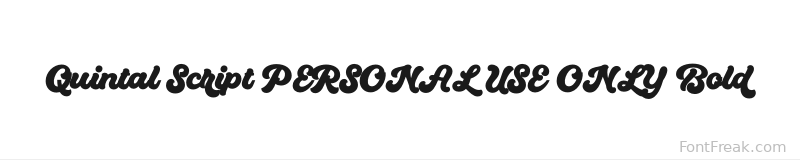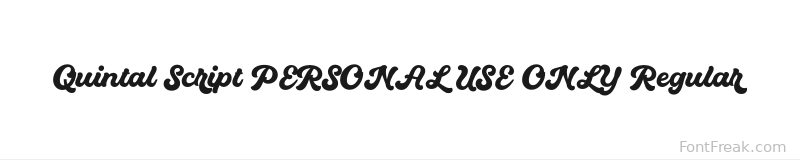
Quintal Script PERSONAL USE ONLY Bold
Quintal Script PERSONAL USE ONLY Regular
Quintal Script PERSONAL USE ONLY Bold is a striking script font designed by Mans Greback, embodying a blend of elegance and modern flair. This font, categorized under script typefaces, features a bold stroke weight that ensures it stands out in any application. The smooth curves and playful flourishes create an inviting aesthetic, while the varied stroke contrast adds depth and interest. The spacing is thoughtfully designed, allowing for easy readability without sacrificing style. The decorative elements, such as its flowing connections between letters, contribute to a sense of movement and sophistication.
This font is particularly suitable for a variety of use cases. It shines in wedding invitations, where its romantic and whimsical style can elevate the overall theme. Additionally, Quintal Script can be effectively utilized for restaurant menus, providing a warm and welcoming touch that enhances the dining experience. Graphic designers may find it ideal for branding projects, as the font's unique character can help establish a memorable identity. Other potential applications include greeting cards and event posters, where its bold nature can attract attention and convey the intended message effortlessly.
Targeted primarily at graphic designers, small business owners, and content creators, this font offers versatility and charm. Whether you're designing for a client or working on a personal project, Quintal Script PERSONAL USE ONLY Bold contributes a distinctive flair that captures attention.
What sets this font apart is its ability to merge playfulness with professionalism, making it suitable for both formal and casual contexts. The Quintal Script PERSONAL USE ONLY Bold font free download allows users to incorporate this unique typeface into their creative endeavors, ensuring that their designs are both stylish and impactful.